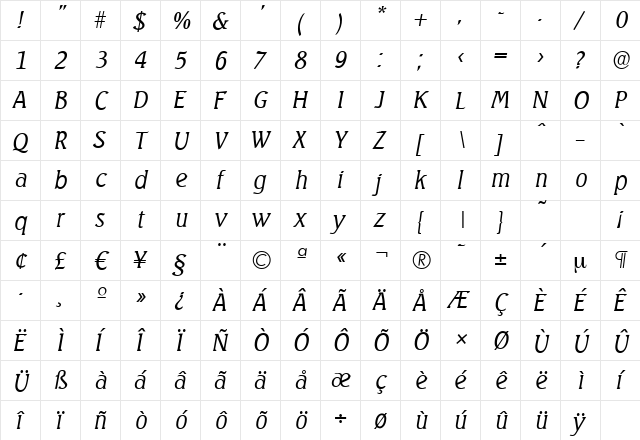
SeagullSerial-Light Italic Font Preview
SeagullSerial-Light Italic
SeagullSerial-Light Italic Font Details
Design Context for SeagullSerial-Light Typeface
SeagullSerial-Light takes a measured approach to typography — its balanced proportions and neutral character make it a reliable workhorse for both digital and print work. The slanted form adds forward momentum and visual energy. The delicate stroke weight brings airiness and refinement to layouts.